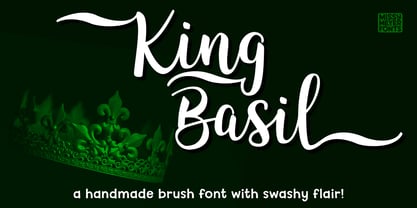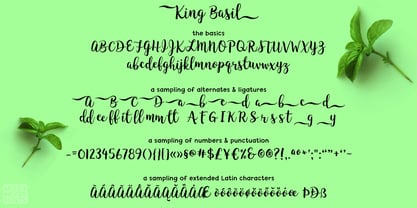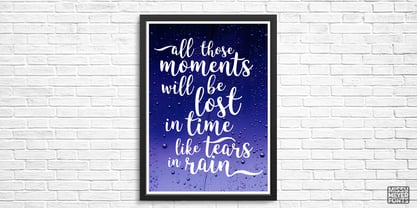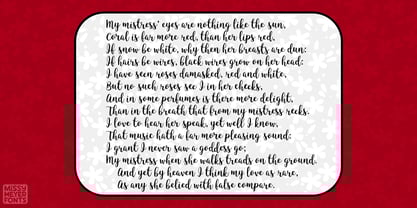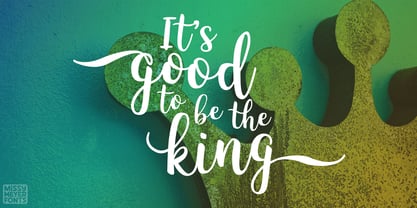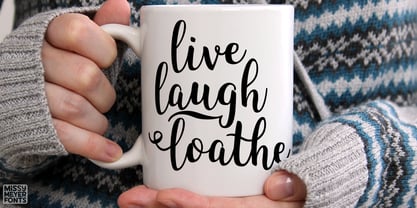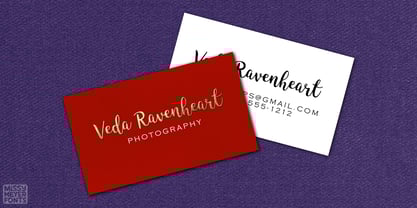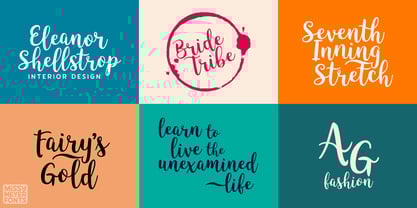
King Basil
by Missy Meyer
The King Basil Font Family was designed by Missy Meyer and published by Missy Meyer. King Basil contains 1 styles. More about this family
Say hello to King Basil: nearly 500 glyphs, including A-Z, a-z, 0-9, tons of punctuation, 24 ligature sets, over 200 extended Latin characters for language support, entry swash alternates for all uppercase and lowercase letters, exit swash alternates for all lowercase characters ... this sucker has a ton of features!
This was the first font I loved enough to list it for sale; to celebrate King Basil's 9th birthday, I've updated this old friend for 2025! There are a number of new alternate letters, many of which were pulled from the original pen-on-paper pages, plus some new ligatures and swashes, and a lot of freshening up and updating of all characters!
King Basil now includes all the basics (A-Z, a-z, numbers, and tons of punctuation); plus entry swash alternates for uppercase and lowercase and exit swash alternates for lowercase; 15 double-letter ligatures; 24 additional alternates for variety; over 200 extended Latin characters for language support; and a handful of swashes to make things extra decorative!